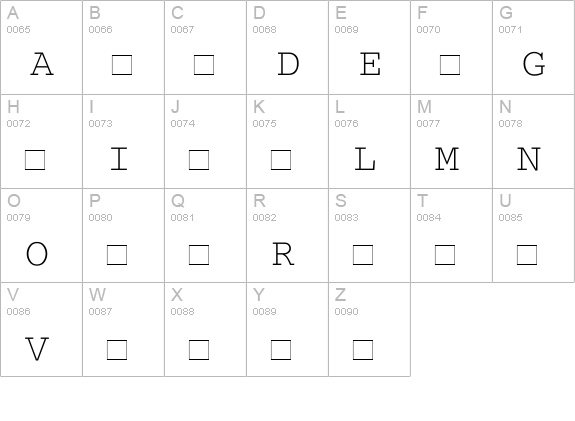
DirkA4 Font Details
Introducing DirkA4 font - a versatile and modern typeface that is sure to make your design projects stand out. With its clean lines and stylish appearance, DirkA4 font is perfect for a wide range of applications, from branding to web design to print materials. What sets DirkA4 font apart is not only its aesthetic appeal, but also the fact that it is available for free download at FontsMarket.com. This means you can easily access this high-quality font without breaking the bank, allowing you to elevate your projects without any additional cost. Whether you're working on a logo, a website, or a brochure, DirkA4 font is a fantastic choice that will help you achieve a professional and polished look. Download it today and see the difference it can make in your designs!